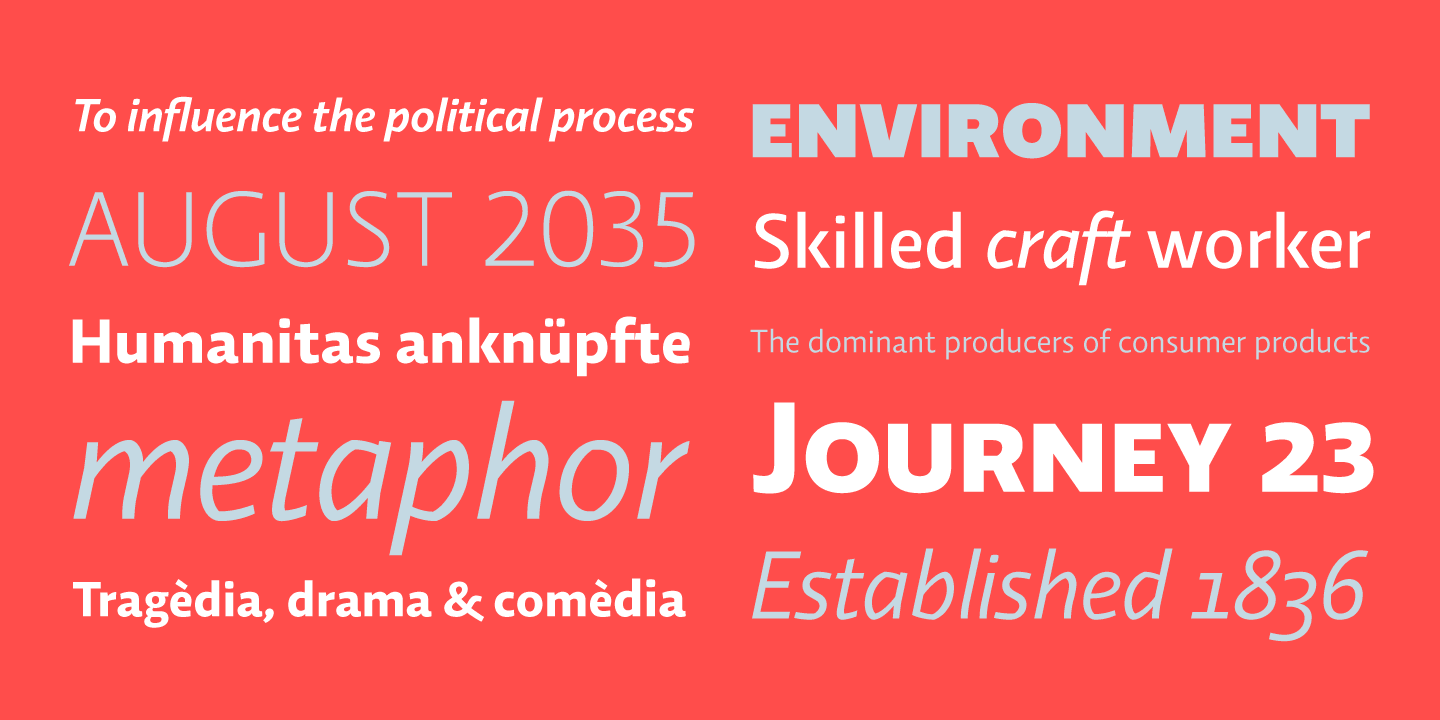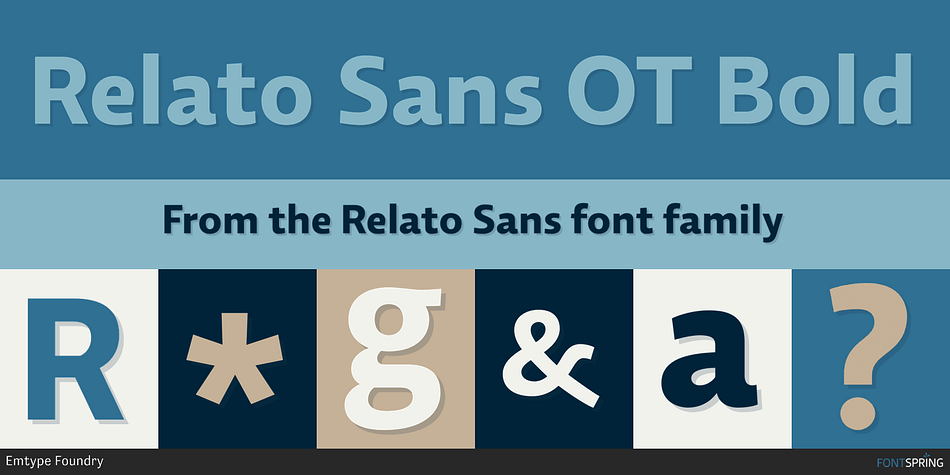
Designed by Eduardo Manso, Relato Sans is a sans serif font family. This typeface has twelve styles and was published by Emtype Foundry.
Relato Sans OT Bold
Relato Sans is the other face of Relato Serif, being the sans more austere and aseptic. A humanistic type, with a contemporary cut, created for general use in texts and with a great variety of weights, which allow enough flexibility for demanding projects. It maintains many of the characteristics of its homologous such as proportions, the x height, the construction based on air lines of the italic, ornaments and so on. These details show coherence with the serif version, and at the same time reinforce its personality.